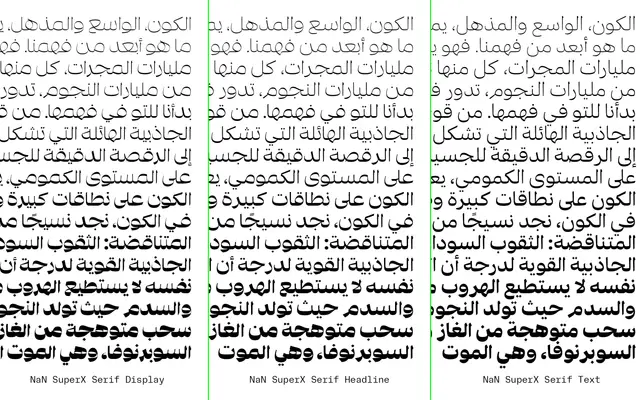
NaN SuperX Serif
NaN · Hugues Gentile, Fanny Hamelin, Fadhl Haqq, Léon Hugues, Jean-Baptiste Morizot, Luke Prowse, Florian Runge, Jolana Sýkorová · 2024
A high-contrast old-style serif with an oversized x-height, leaf-shaped teardrops and a pointed-nib italic, spanning Latin and Arabic across three optical sizes.
Designed by the NaN team and released across 2024 and 2025, it takes the disproportionately large x-height of phototypesetting-era faces as its starting point. Eight weights with italics run across Display, Headline and Text optical sizes, with the Text cut reducing contrast and loosening spacing for smaller settings. Details are carefully calibrated: vivid round shapes sit alongside angular tails on the /a, sharp apexes on /V and /W, and vertical serifs on /C and /Z, giving the face an identifiable voice without tipping into novelty.
High-contrast old-style structure with leaf-shaped teardrops and a calligraphic italic rooted in pointed-nib forms; the disproportionately large x-height and phototypesetting references place it within a contemporary revival of old-style proportions rather than a straight historical model.